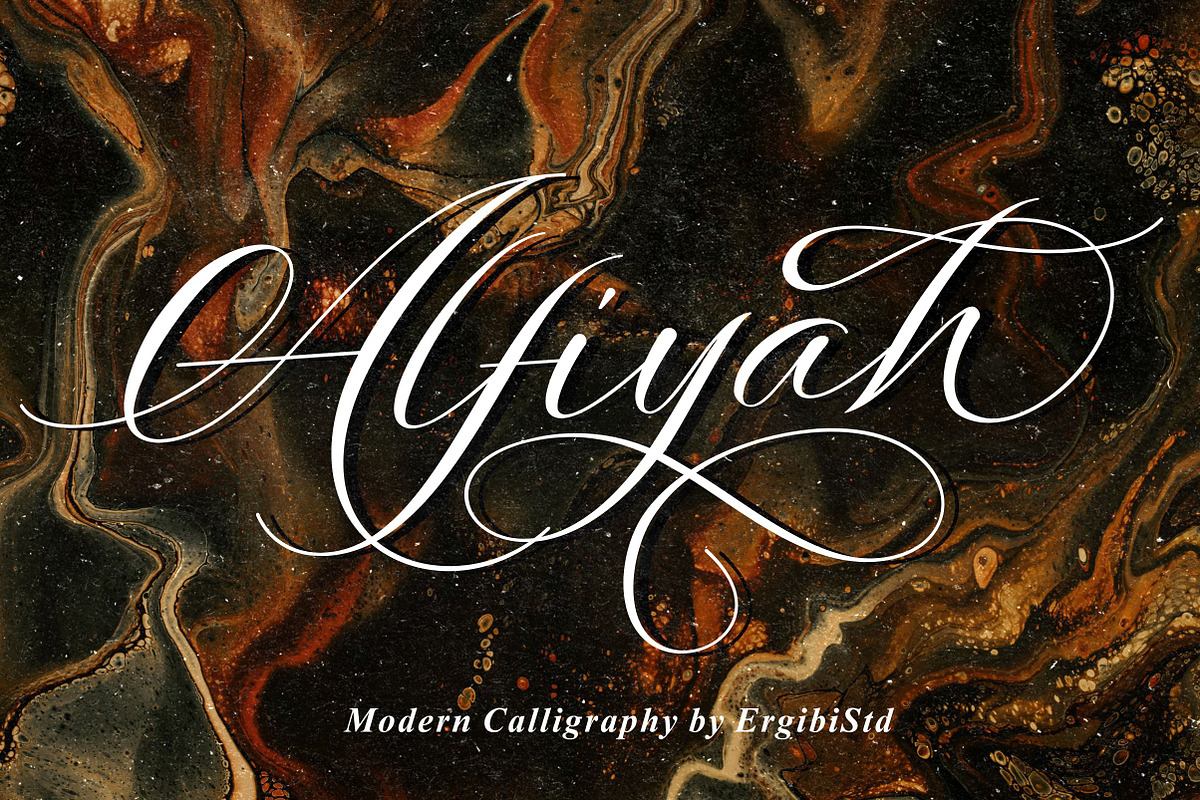
Please note, you must purchase this font for commercial use. However, you can easily download Alfiyah - Modern Calligraphy Free Download for personal use and testing purposes. Alfiyah - Modern Calligraphy is an elegant and flowing script font designed to add a touch of sophistication and beauty to any design. Perfect for invitations, branding, greeting cards, and wedding designs, this font features smooth, hand-lettered strokes that evoke a sense of timeless charm. The delicate curves and fluid transitions make Alfiyah - Modern Calligraphy Free Download ideal for projects that require a refined, artistic touch. Whether you're designing for a luxury brand, a romantic event, or a personal project, this font will elevate your typography with its graceful and modern calligraphic style. Download Alfiyah - Modern Calligraphy Free Download today and explore its potential before opting for a commercial license.